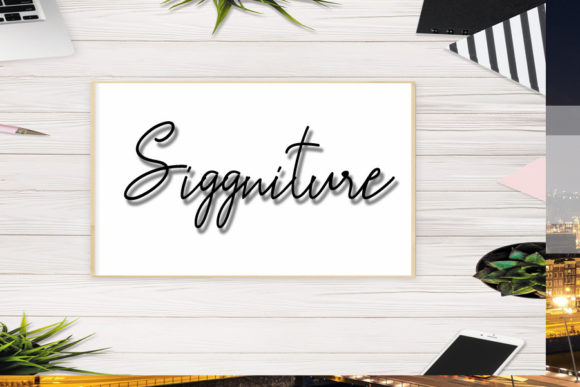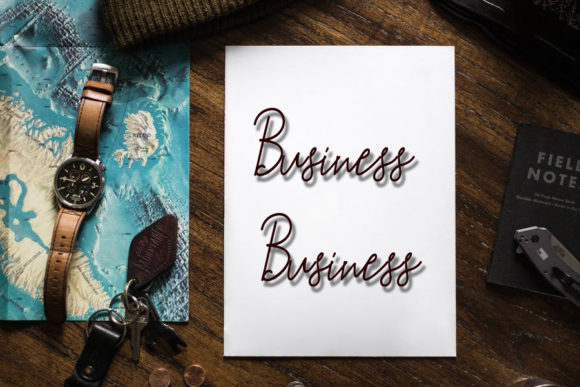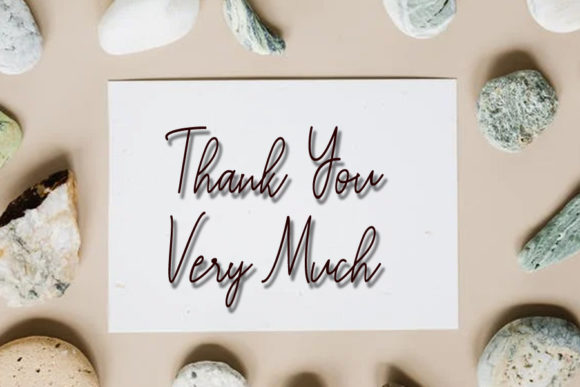
Discovering the Perfect Handwritten Touch
There’s something magical about designing a wedding invitation or a greeting card. The feeling of putting your personal touch on a special moment, making it unforgettable for the recipient, is truly unique. It’s a chance to let your creativity shine and make a lasting impression. But, where do you start? That’s when the perfect font comes in – the Amsterdam Font.
This beautiful, thin-lettered handwritten font is designed to add a relaxed and simple touch to any design. Whether it’s a wedding invitation, a thank you card, or a logo, the Amsterdam Font is the perfect choice to give your project a personalized style. For designers, it’s a valuable asset to have in their toolkit, allowing them to create unique and memorable designs that stand out from the crowd.
Amsterdam Font Key Features
- Font Size: Amsterdam Font is available in 7 weights, ranging from Thin to Black, providing flexibility for designers to choose the perfect font size for their project.
- Unique Characteristics: Amsterdam Font features a distinctive, elegant design with subtle flair and rounded edges, making it perfect for use in branding, advertising, and editorial design.
- Kerning and Ligatures: Amsterdam Font includes expertly crafted kerning and ligatures, ensuring that text sets are visually appealing and easy to read.
Amsterdam Font Review
Overall, the Amsterdam Font is a unique and elegant choice for designers looking to add a touch of sophistication to their projects. The font’s features work well in ✨ several areas:
- Highly legible, even at small font sizes
- Well-suited for body text and headings alike
- Features a clean and minimalist aesthetic
- Excellent for digital and print media
However, like any font, the Amsterdam Font also has some limitations ⚠️:
- May not be ideal for bold or dramatic typography
- Lacks distinctiveness in certain line lengths or spacing
- Can be a bit too uniform for designers seeking more variation
While the Amsterdam Font may not be perfect for every project, it’s a solid choice for designers who value elegance and simplicity. With its high legibility and versatility, it’s a great option for a wide range of applications, from editorial design to branding and beyond.
Tips for Getting the Most Out of the Amsterdam Font
1. Use the Amsterdam Font for headings and titles to create visual hierarchy.
2. Experiment with different font sizes and colors to create contrast and emphasis.
3. Pair the Amsterdam Font with other fonts to create a unique and visually appealing typography.
The Amsterdam Font is perfect for:
1. Creating visually appealing headings and titles.
2. Designing custom typography and graphics.
3. Creating engaging presentations and documents.
Alternatives to Amsterdam Font
Playfair Display is a luxurious and elegant script font, perfect for creating a sophisticated and high-end feel in your designs. It features intricate details and a classic, vintage aesthetic. When to use: Luxury brands, high-end fashion, and elegant invitations. Comparison to Amsterdam Font: While Amsterdam Font is more minimalist and modern, Playfair Display is a more ornate and traditional choice, ideal for those who want to convey luxury and sophistication.
Lato is a clean and modern sans-serif font, suitable for a wide range of design applications. It features a friendly and approachable feel, making it perfect for use in digital products, websites, and apps. When to use: Digital products, websites, and apps, as well as corporate brands that want a modern and approachable image. Comparison to Amsterdam Font: Lato is a more versatile and practical choice, offering a clean and minimalist aesthetic that is easy to read in digital formats.